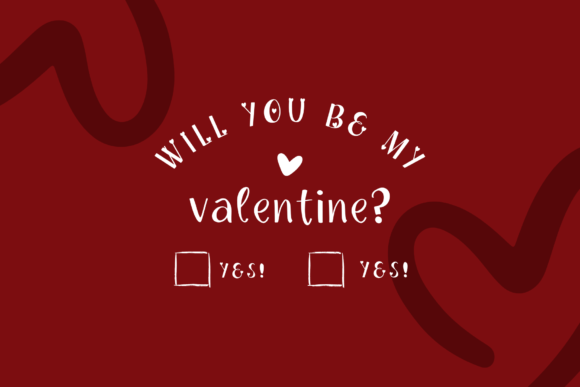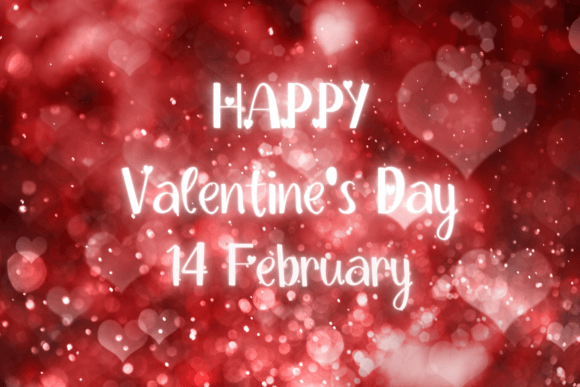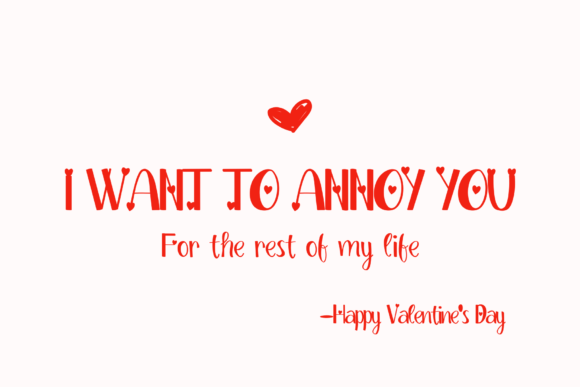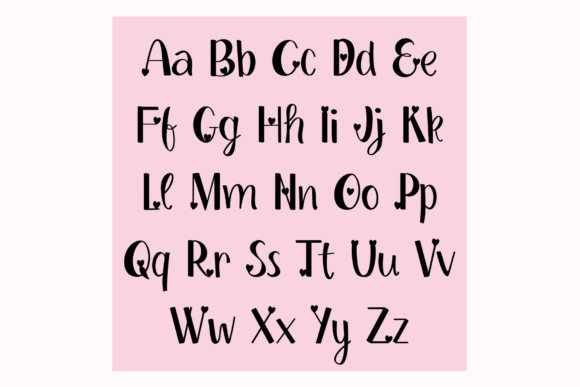
The Joy of Handwritten Design: Introducing Balloons Font
Have you ever found yourself rummaging through a box of colorful pens and markers, searching for the perfect tool to add a personal touch to your next creative project? That’s exactly what happened to me when I stumbled upon the sweet and friendly Balloons Font. Its whimsical charm and playful feel instantly sparked a wave of ideas for birthday cards, wedding invitations, and digital designs that needed a fun twist.
Designed to bring a smile to your face, Balloons Font is a versatile and adorable handwritten display font that’s perfect for adding a dash of personality to your work. With its cute and fun aesthetic, this font is an invaluable asset for designers looking to elevate their craft and leave a lasting impression on their audience. Whether you’re a seasoned pro or a budding creative, Balloons Font is sure to inspire your next project and bring a touch of magic to your design.
Balloons Font Key Features
- Font Type: Script font
- Unique Characteristics: Hand-drawn, whimsical, and playful design with a sense of movement and fluidity
Balloons Font Review
I recently had the chance to work with the Balloons Font, and I must say, it’s a font with a lot of character. ✨ One thing that stands out is its playful, whimsical feel, making it perfect for creating a fun and lighthearted atmosphere. It’s great for children’s products, party invitations, or even advertisements that want to convey a sense of joy.
Another great aspect of the Balloons Font is its versatility. It comes in various weights and styles, allowing designers to mix and match to achieve the desired effect. ✨ The font also has a nice balance of rounded and sharp edges, making it visually appealing and easy to read.
- ⚠️ The font can feel a bit too playful or childish for certain applications, such as corporate or formal designs.
- ⚠️ Some characters may not be perfectly legible at small font sizes, which can affect readability.
Overall, I think the Balloons Font is a great addition to any designer’s toolkit. While it may have some limitations, its unique personality and versatility make it a valuable resource for creating engaging and eye-catching designs.
Balloons Font is commonly used for:
- Wedding invitations and party decorations.
- Children’s birthday parties and events.
- Summer and outdoor-themed designs.